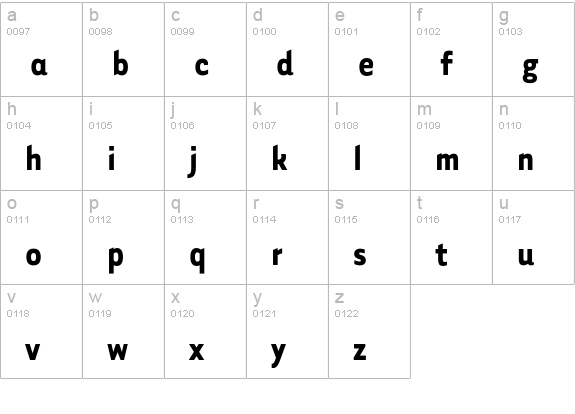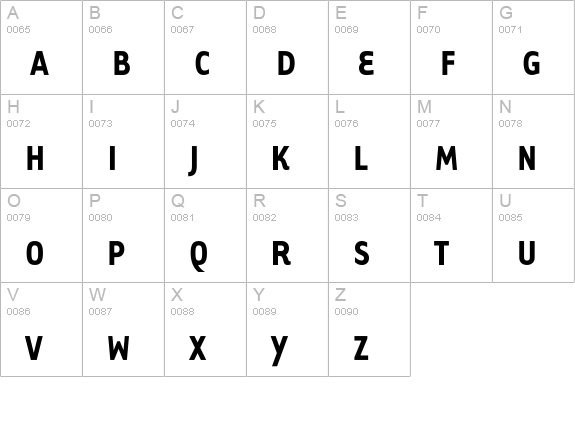
TarzanaNarrowBold Font Details
TarzanaNarrowBold is a stunning and versatile font that will add a touch of elegance and sophistication to any design project. With its sleek and slender letterforms, this font exudes a sense of modernity and refinement. The bold weight of TarzanaNarrowBold lends itself perfectly to headlines, titles, and other prominent text elements, commanding attention and making a statement. Its narrow proportions make it ideal for designs where space is limited, allowing for maximum impact without sacrificing readability. Whether you're creating a logo, designing a website, or crafting a poster, TarzanaNarrowBold will elevate your work to new heights. Its clean lines and balanced letterforms ensure that your message is communicated clearly and effectively. What's more, TarzanaNarrowBold is available for free download at FontsMarket.com, making it accessible to designers of all skill levels. This means that you can enjoy the benefits of this exceptional font without breaking the bank. So why wait? Take advantage of this amazing opportunity to enhance your designs with TarzanaNarrowBold. Download it for free at FontsMarket.com and unleash your creativity today.